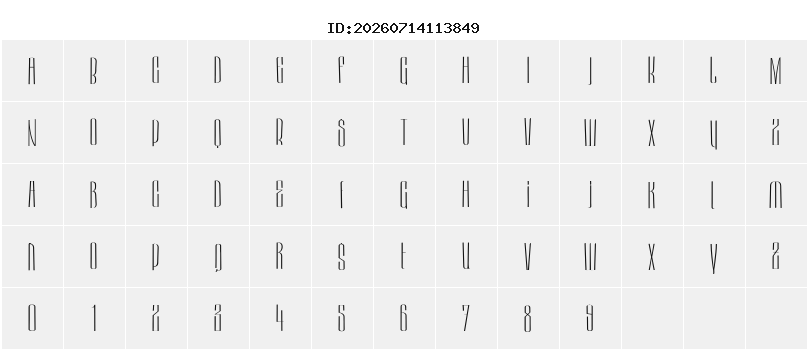
Hektor Light Preview
• Font Name: Hektor Light
• Full Font Name: Hektor Light
• PostScript Name: Hektor-Light
• Designer: Michael Schinköthe >Typism<
• Manufacturer: Greatmade
About Hektor Light.ttf
Hektor Light.ttf is a modern, elegant sans-serif font designed for ultimate readability and visual harmony. Perfect for branding, headlines, web design, and print materials.